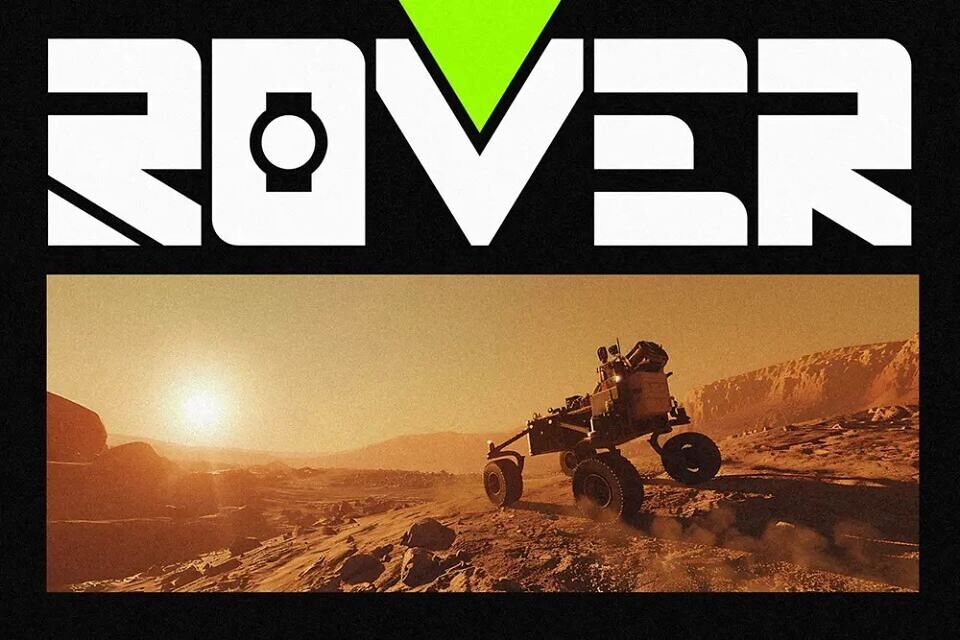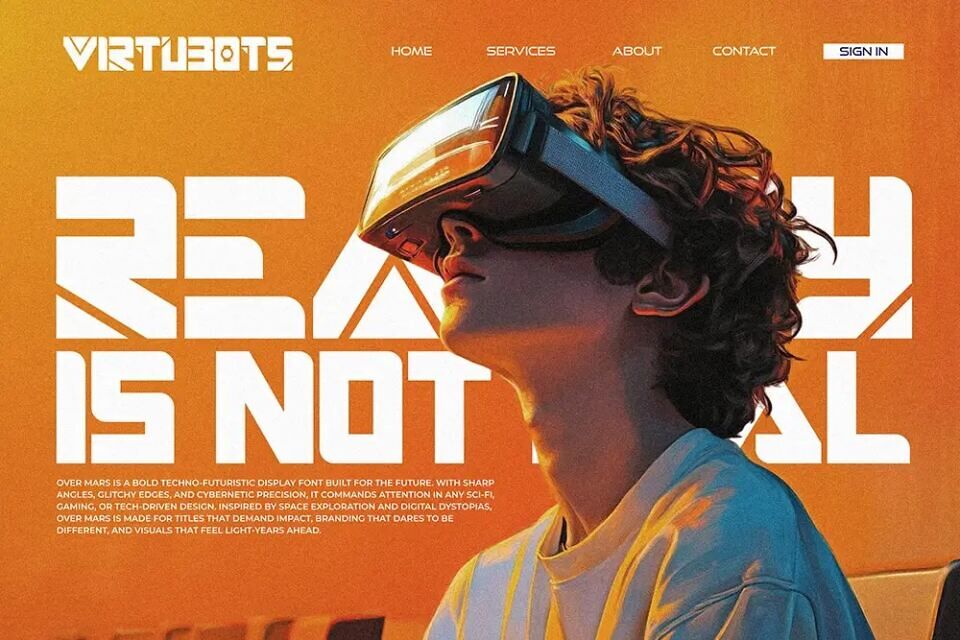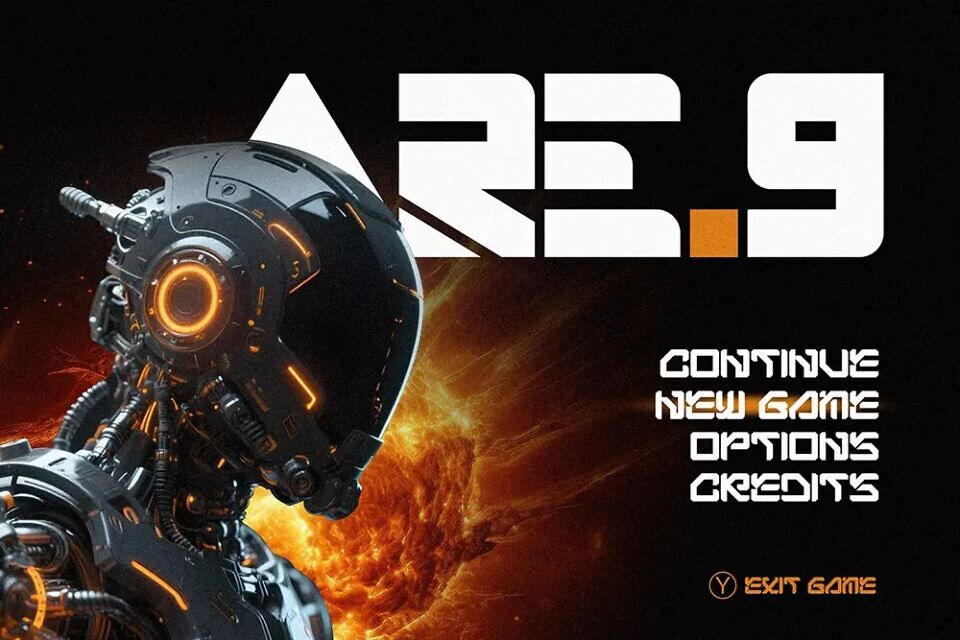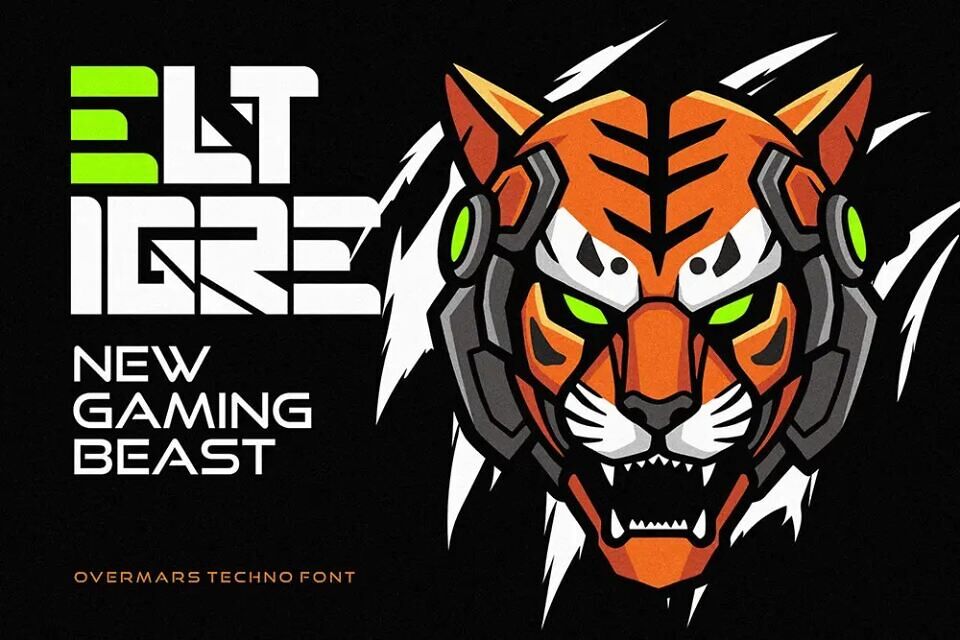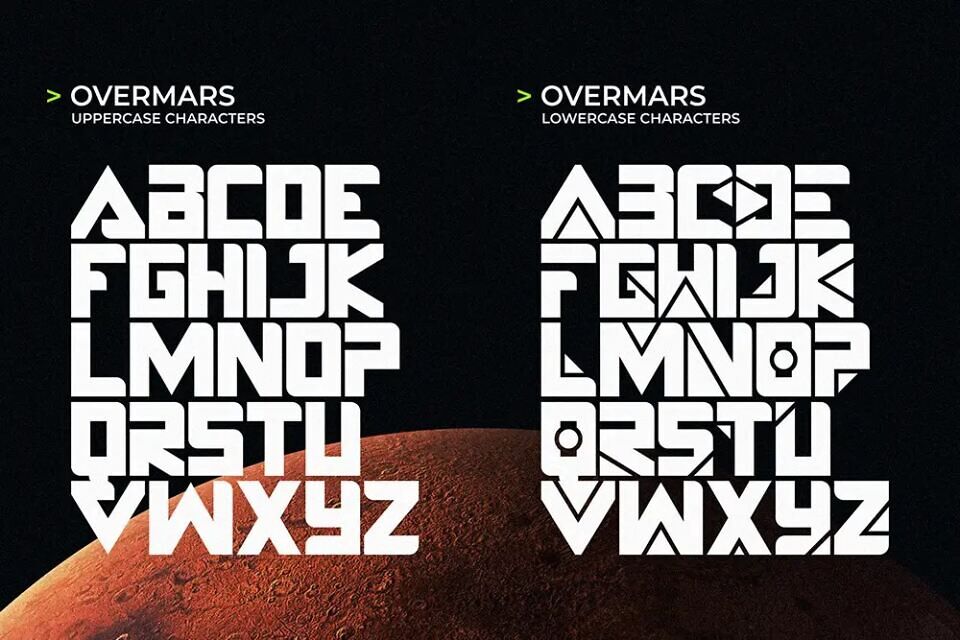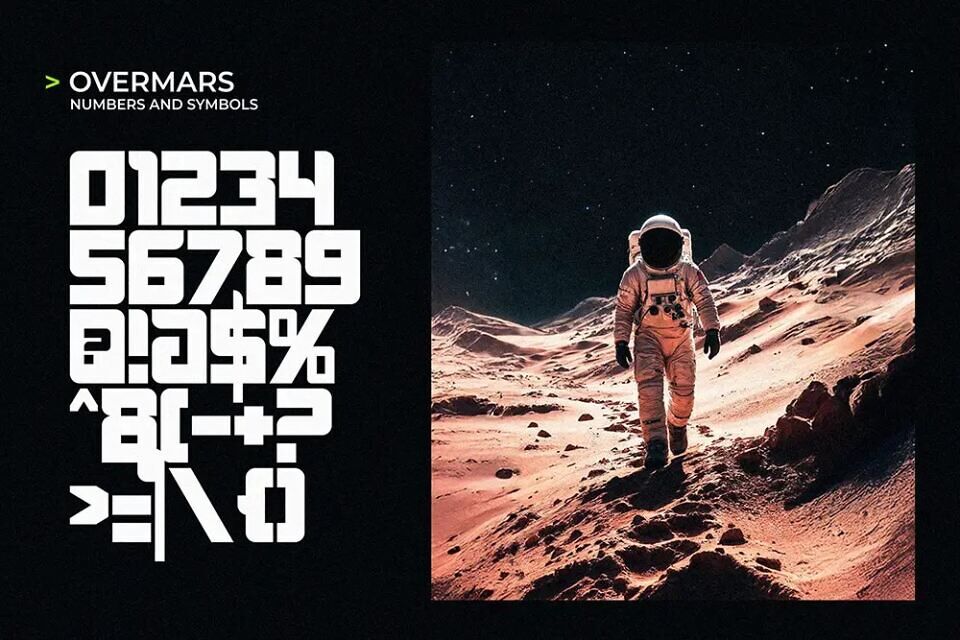
Overmars Font
Overmars is a cutting-edge futuristic techno font crafted for designers who crave bold, digital-forward aesthetics. With a sleek structure and techno-inspired angles, Overmars offers both uppercase and lowercase characters that maintain harmony and innovation in every stroke.
Whether you’re designing for a tech brand, a gaming interface, or a visionary startup, Overmars delivers a high-impact look that demands attention. From logos to UI/UX elements, the minimalist yet aggressive curves of Overmars bring your designs to life with an unmatched sense of modernity. This font stands as a beacon of the future, encouraging fearless experimentation and futuristic storytelling.